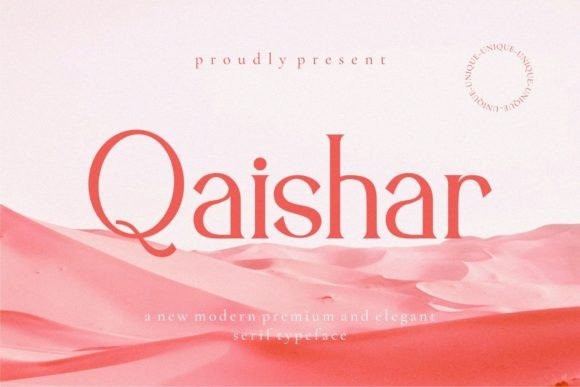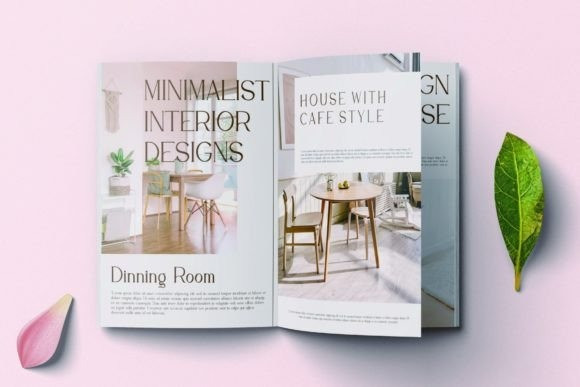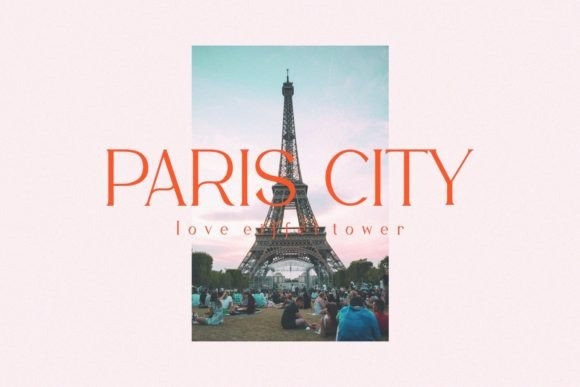
Qaishar Font
Qaishar is a timeless and classic serif typeface that looks incredible in every context. Perfect for logos, branding, invitations, and more, Qaishar will quickly become a staple in your font book. It looks gorgeous in all caps with a wide-set spacing if you want to try a classy look, or beautiful on its own in capital and lowercase letters for something completely timeless.